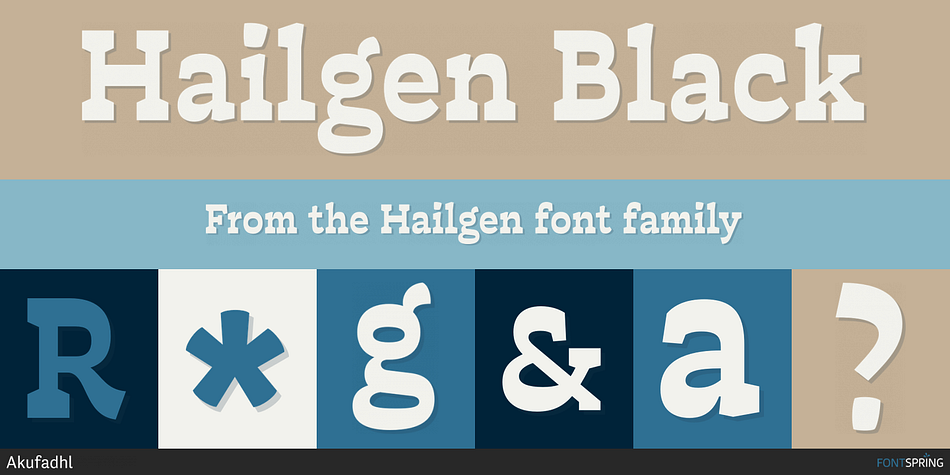
Designed by Fadhl Waliy Ul Haqq, Hailgen is a display serif and serif font family. This typeface has five styles and was published by Akufadhl.
Hailgen Black
Hailgen is a serif typeface that explore a flexibility in contrast, with a thicker horizontal and thinner vertical contrast. designed specially for a short text or quotes. comes with 5 weights ranging from Thin to Black. and armed with several opentype features and Latin and Cyrillic language support.